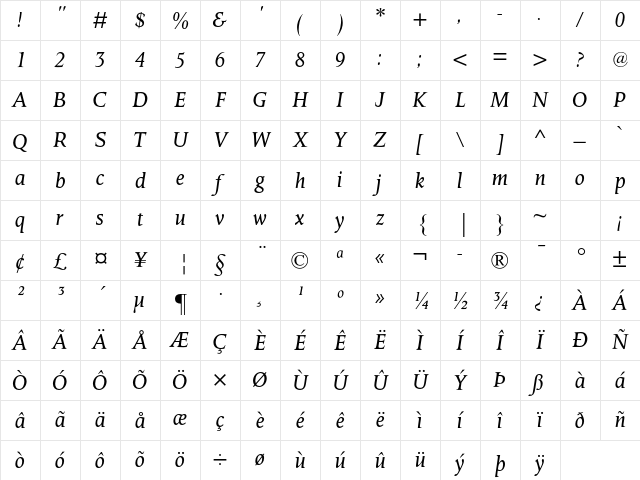
Octavian MT Std Italic
Designer: Will Carter, David Kindersley
Design Context for Octavian MT Std
Octavian MT Std is a composed and adaptable typeface that performs quietly and consistently across a wide range of design contexts. The slanted form adds forward momentum and visual energy.
Pro Tip: Use Octavian MT Std for emphasis, pull quotes, and subheadings where its slanted energy can add rhythm to the layout.